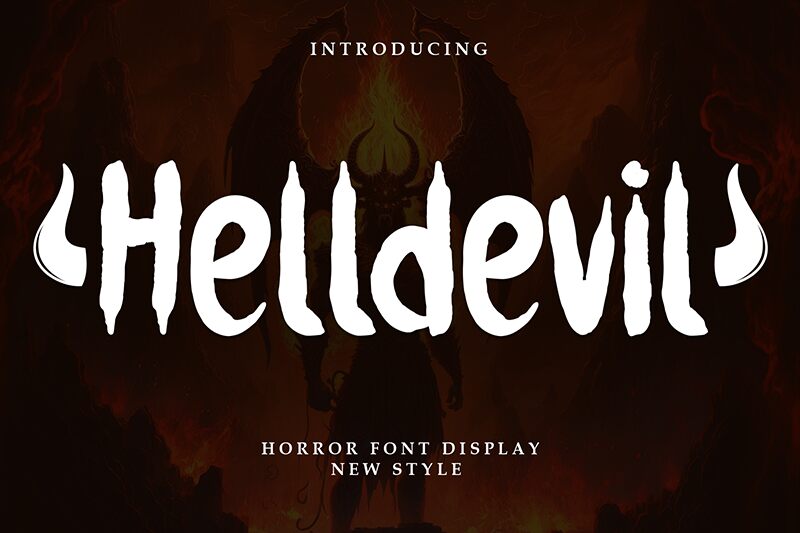
Helldevil is a free horror font designed by Andi Moz. Eerie with style, this font strikes with irregular and dramatic typography inspired by the suggestion of horror themes. Expressive and atmospheric, this handwritten font falls under decorative typefaces with an artistic feel. Simple at first sight, Helldevil is packed with legibility and creative characteristics that render it suitable for both print and digital design.
Integrate the visual touch of Helldevil to your posters, greeting cards, logos, and large titles. It works well on merchandise, clothing, websites, or branding. Download this font for free and use it in any Halloween or classic horror-themed projects. Experimenting with font size and color can help users make the most of the subtle details of this font design.